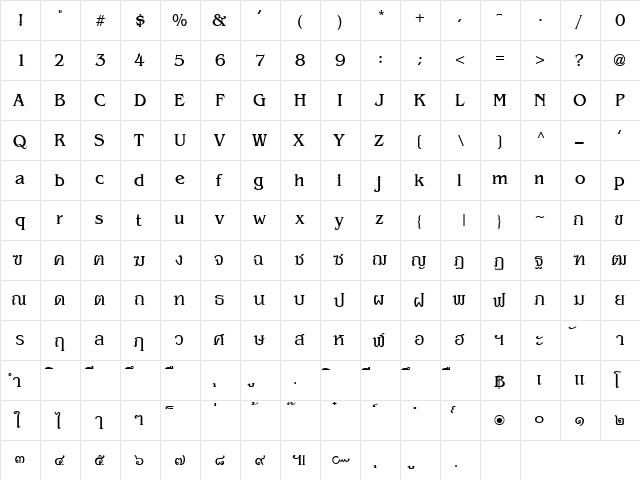
DSN MaiThai Regular
Design Context for DSN MaiThai Typeface
DSN MaiThai is a composed and adaptable typeface that performs quietly and consistently across a wide range of design contexts.